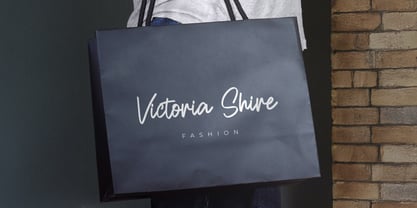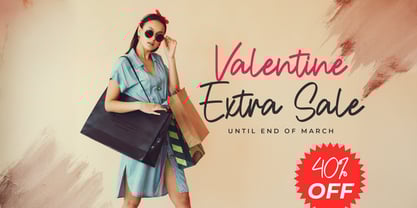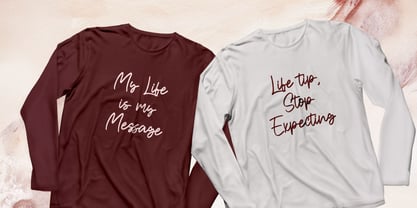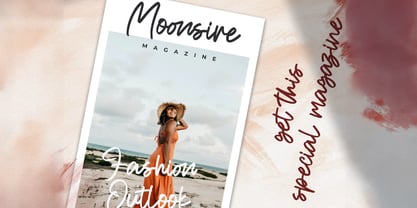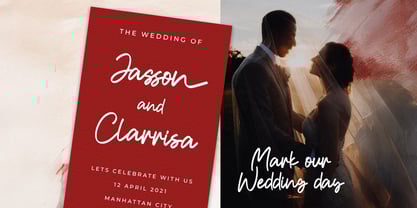
The Honilley Font Family was designed by Virgiawan Listanto and published by Stringlabs Creative Studio. Honilley contains 1 styles.
Honilley is a sweet and stylish handwritten font that captures the beauty of natural penmanship. With smooth curves and a gentle flow, Honilley brings a personal, elegant touch to your designs perfect for projects that need warmth, charm, and a hint of sophistication.